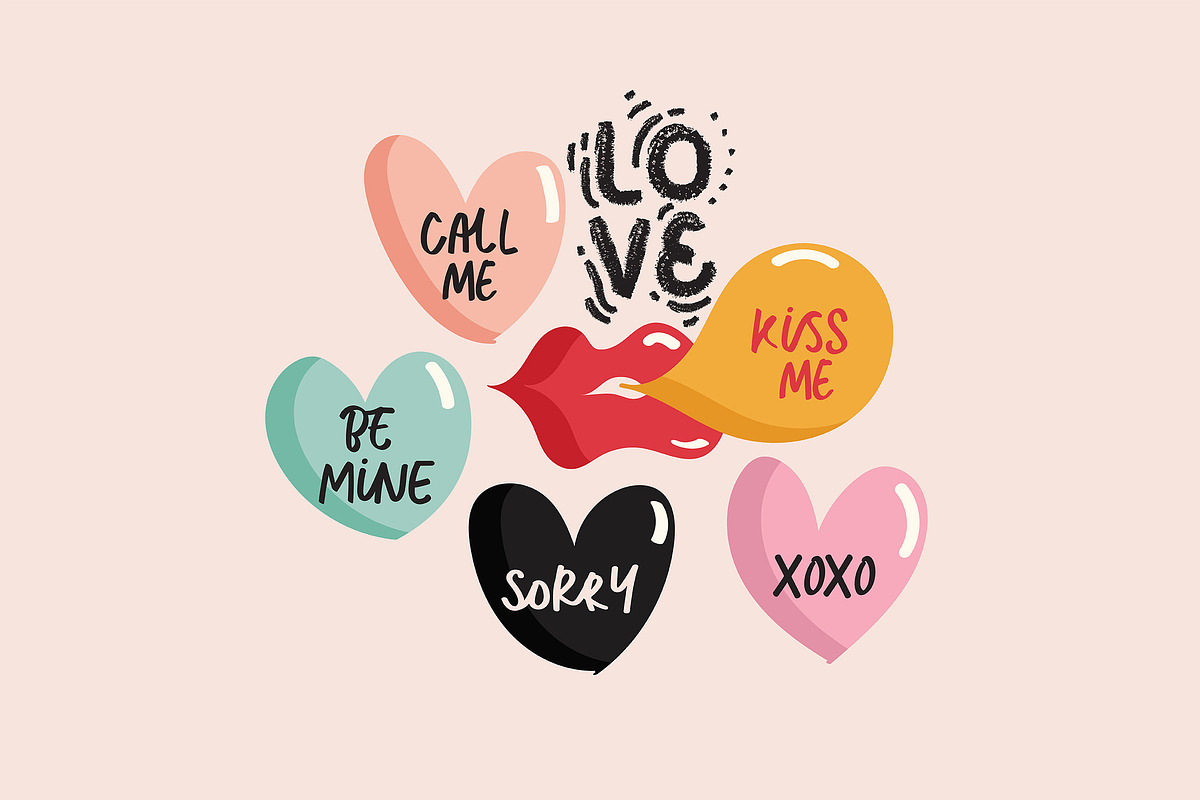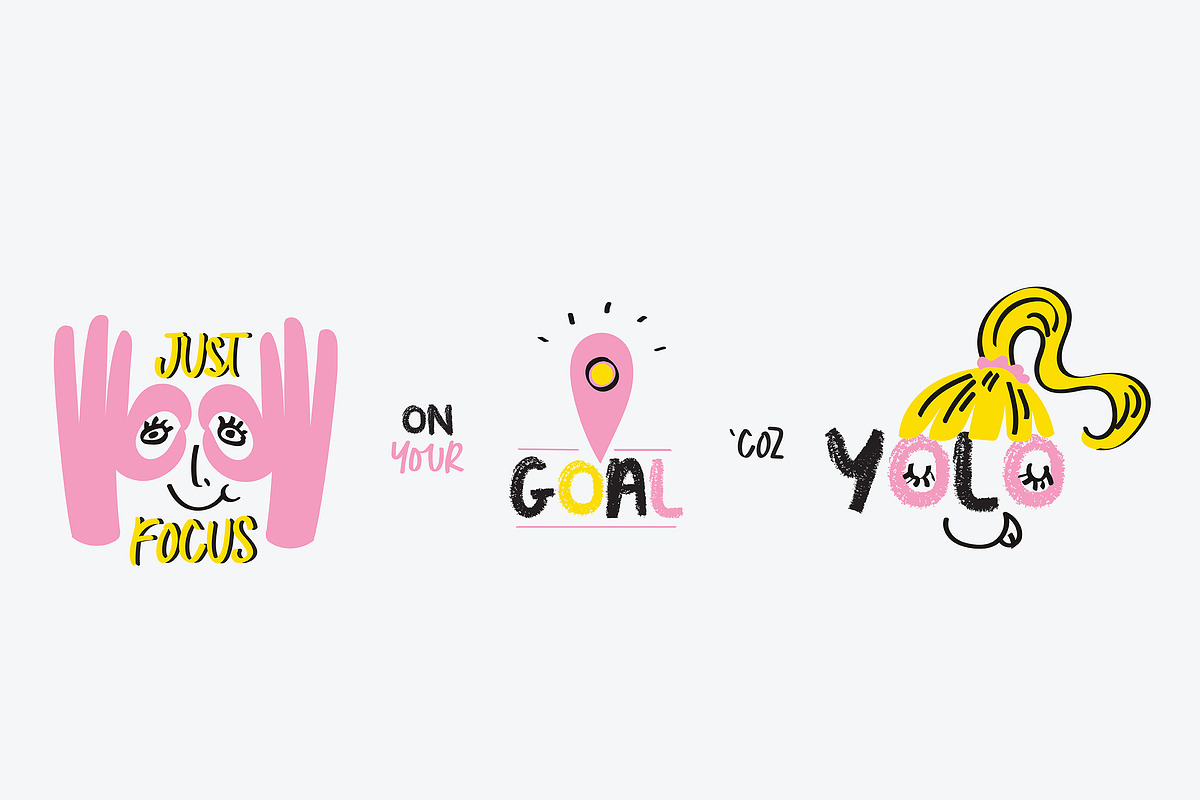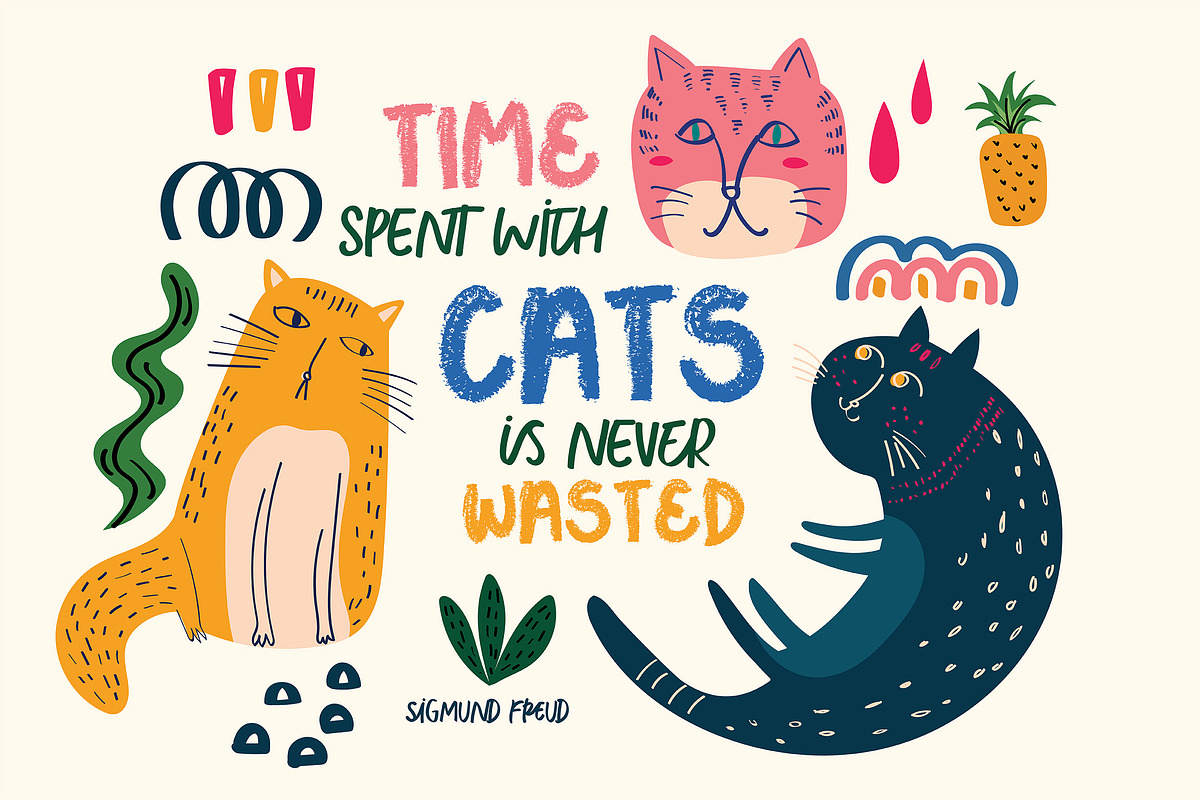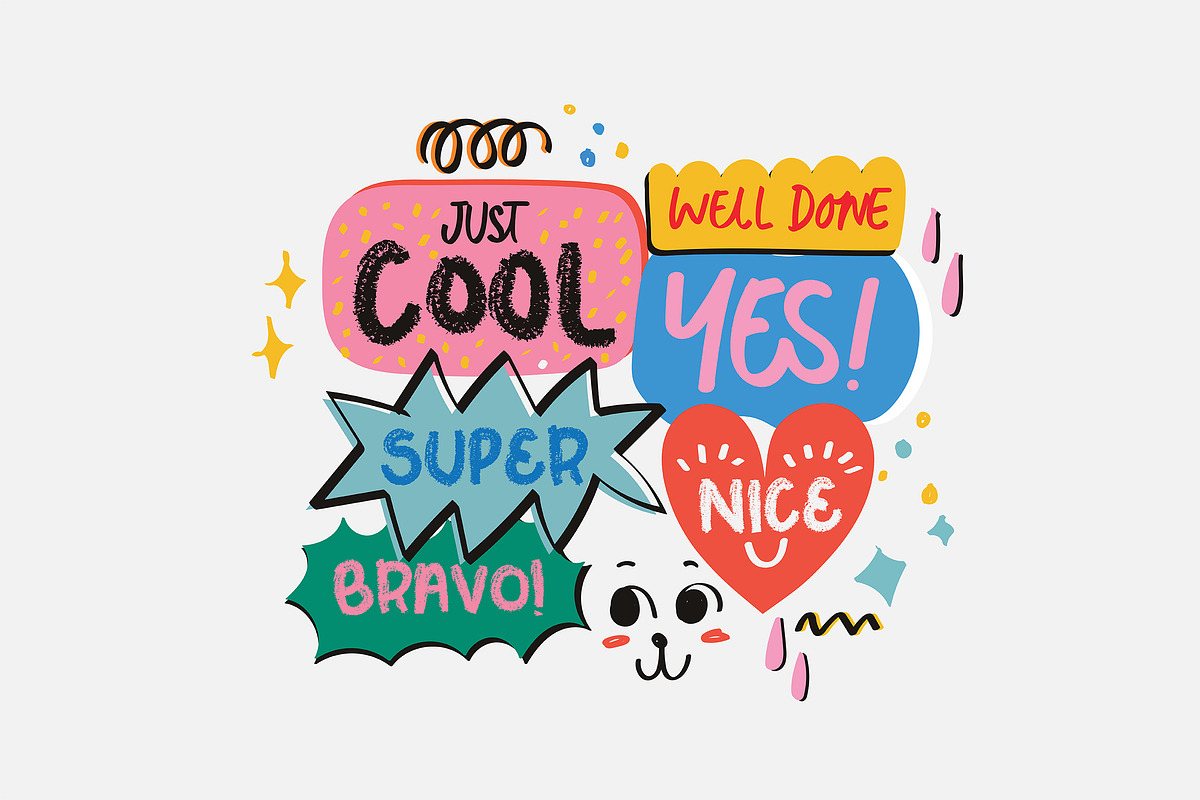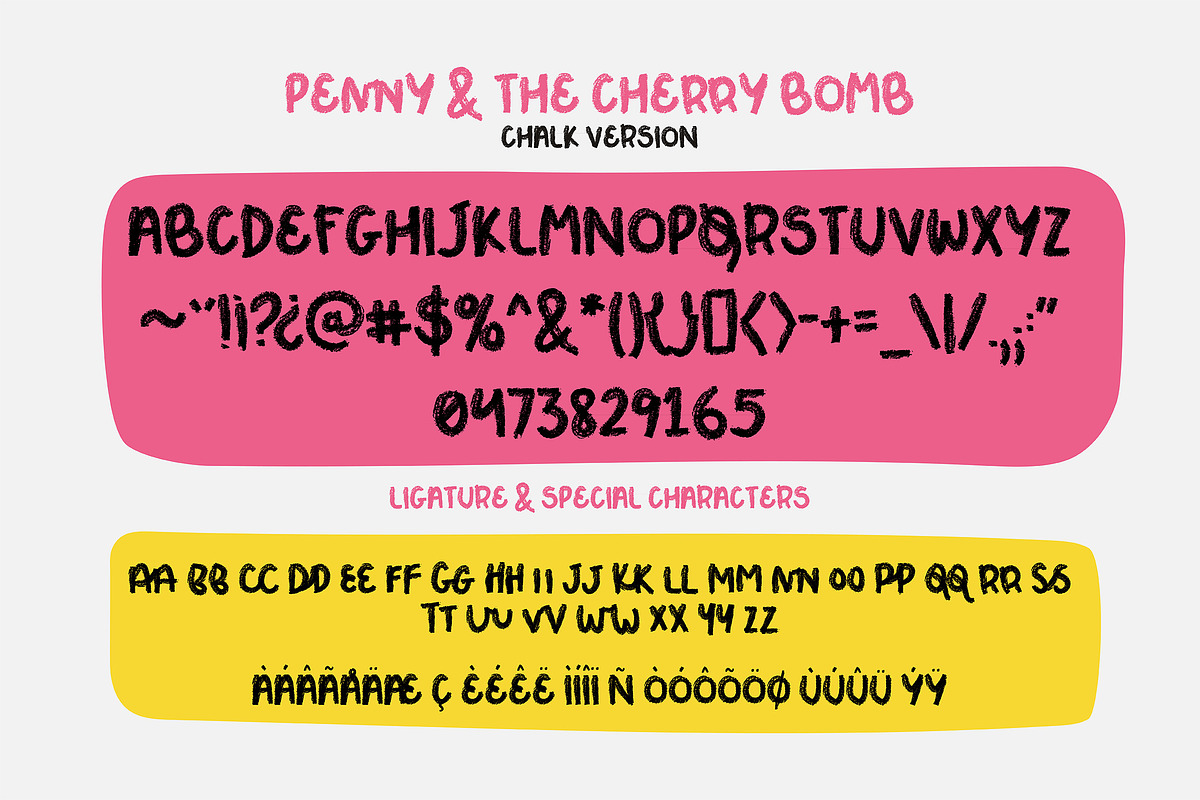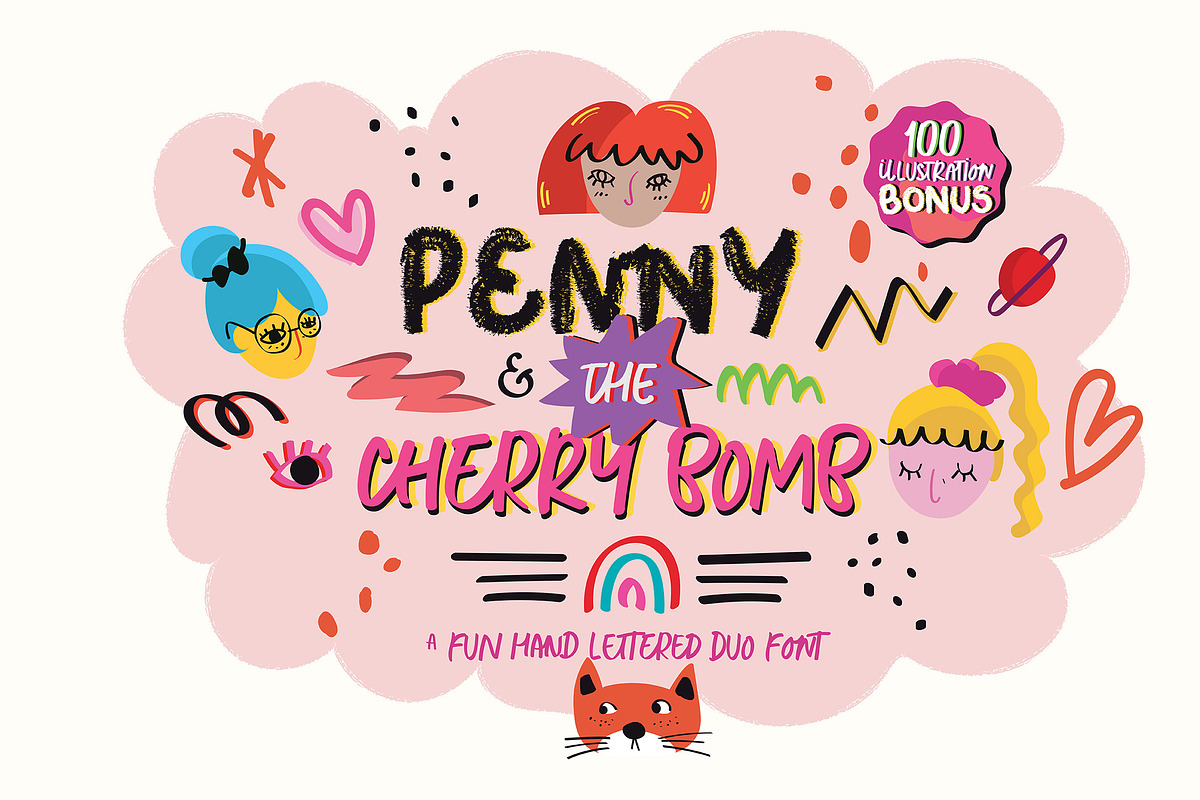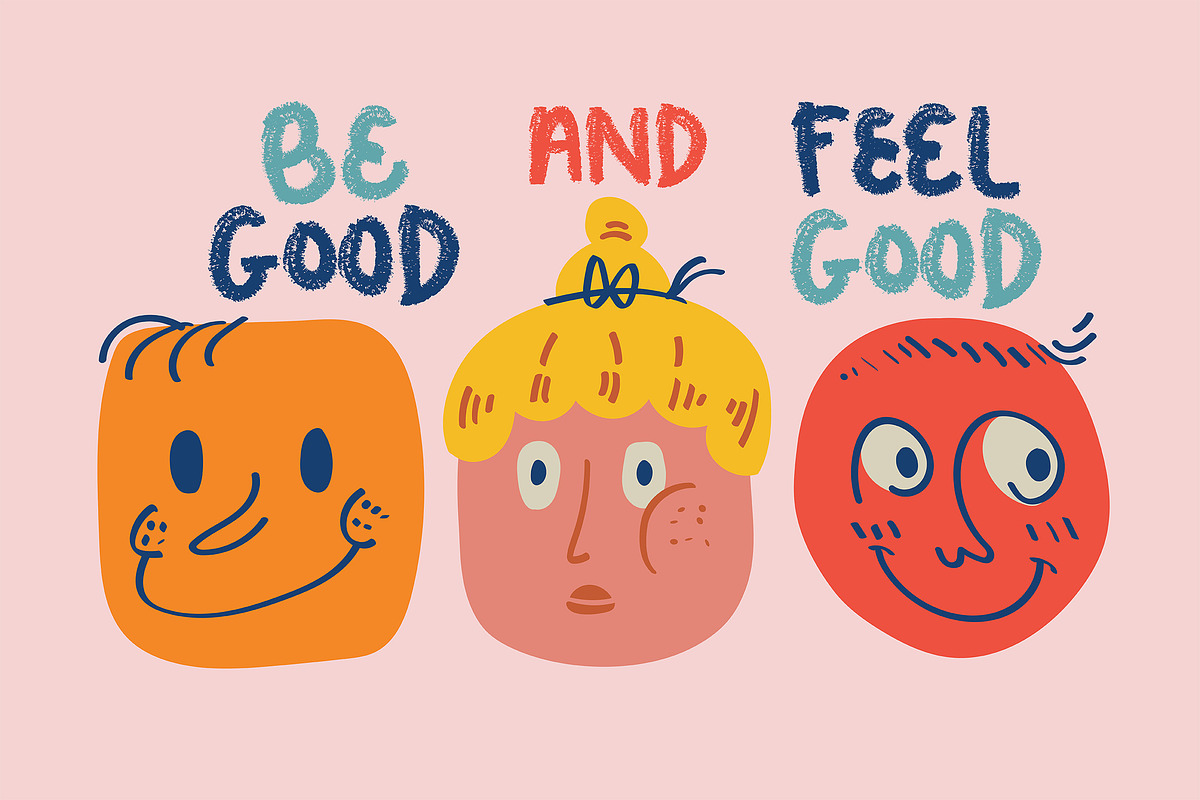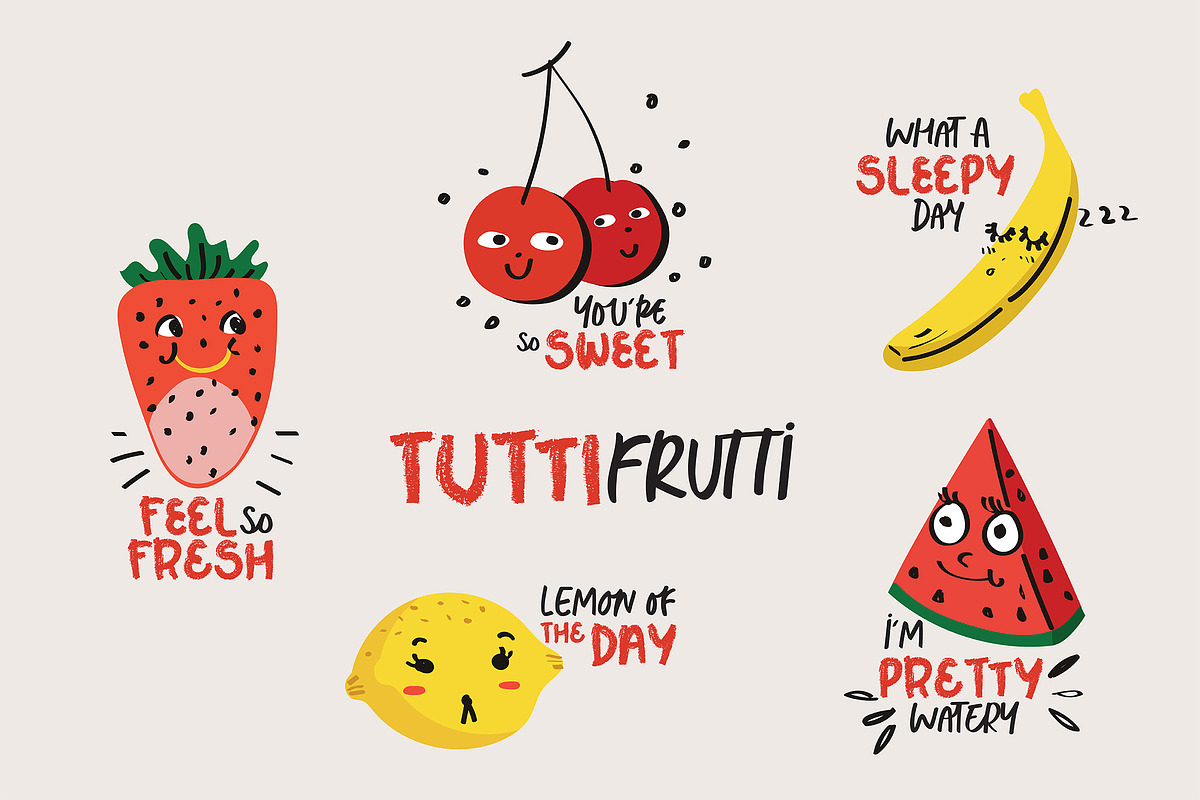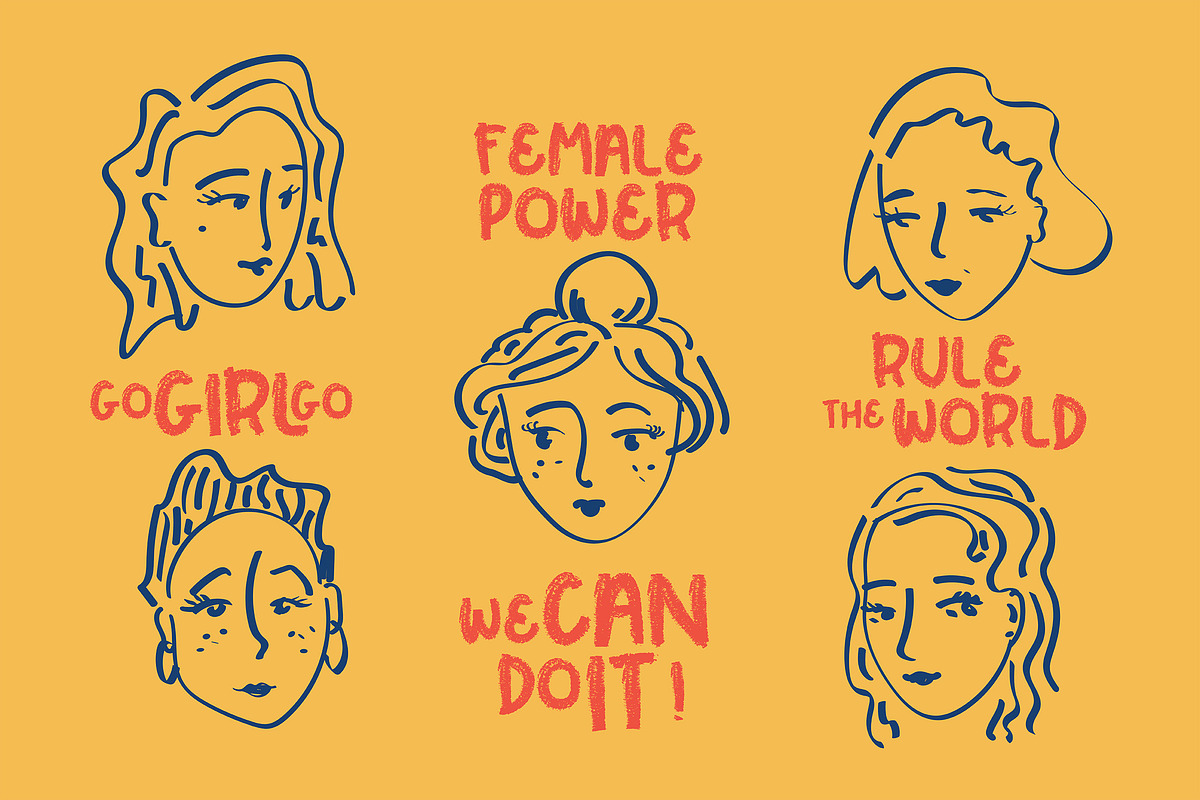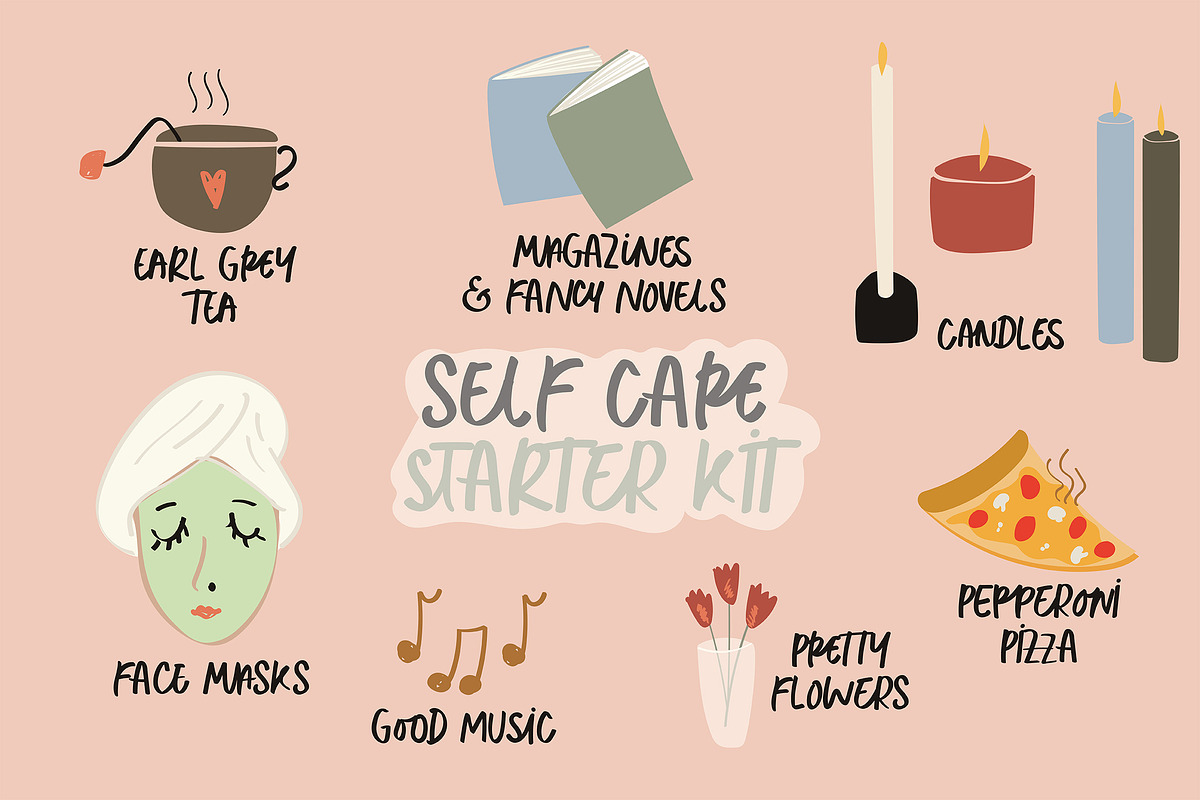
Penny & The Cherry Bomb
Penny & The Cherry Bomb is a uniquely fun font that comes in 2 styles: hand lettered and chalk version. Penny & The Cherry Bomb makes a perfect font for your blog, logo, social media, branding, poster, quotes, design projects & so forth, you decide!
The font contains various ligature option and accented character for international language (check preview images to see which glyphs are included).
Penny & The Cherry Bomb Features:
Natural Hand-Lettered Style
Various Ligature Option
Accented Glyphs for Multilingual Purpose
Ligature List - Penny & The Cherry Bomb Regular:
aa ay at al au ae ad and bb be bl cc ce ch ci ck cl ct cy dd ee ea ed ei el er es et ff gg hh ii id ie il in ir is jj kk ll lk ly mm ma me nn ng nl oo ob of ou ol on op pp qq rr re ss sa si sh st so tt ta th tu uu ul vv ww xx yy zz